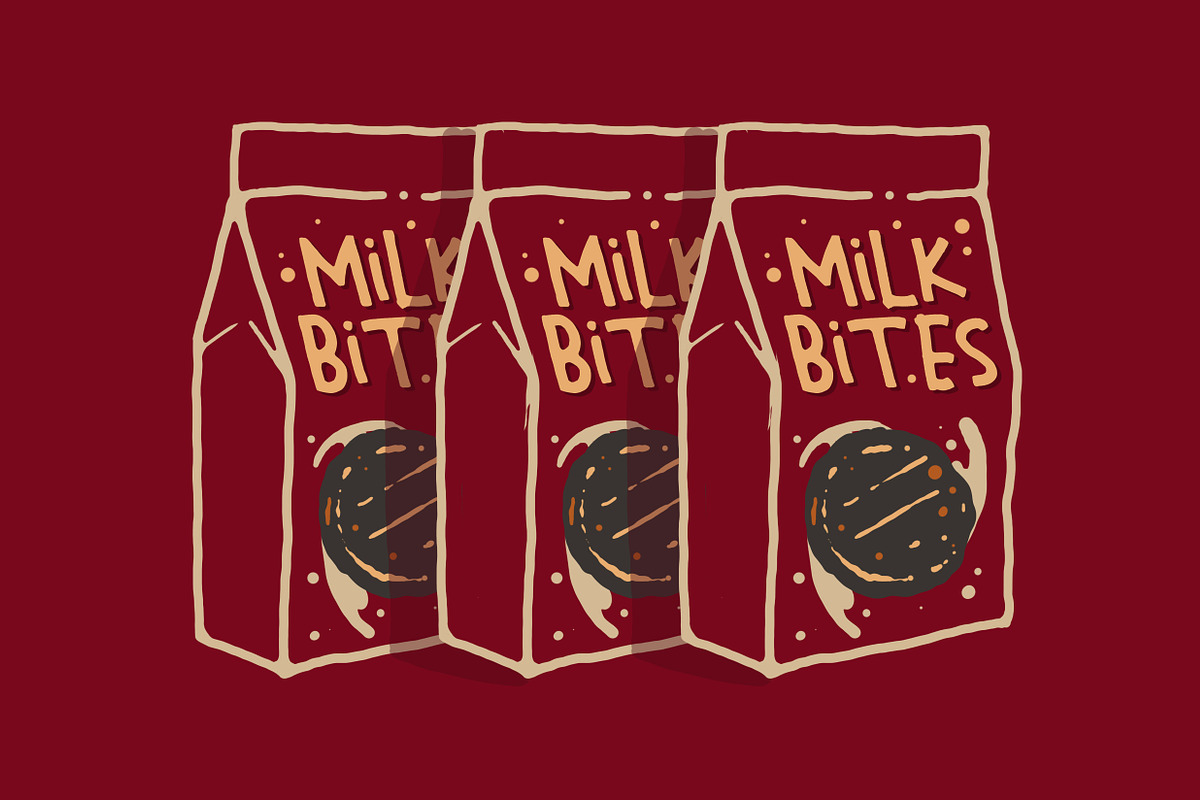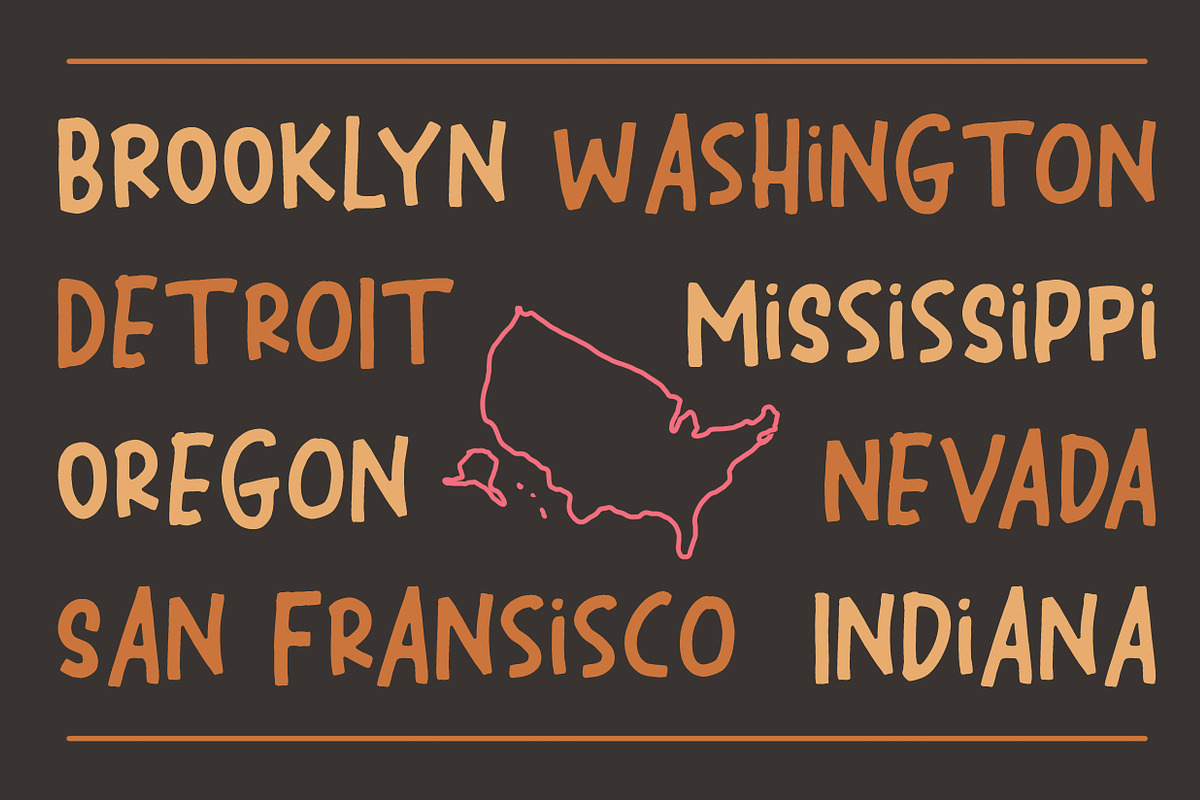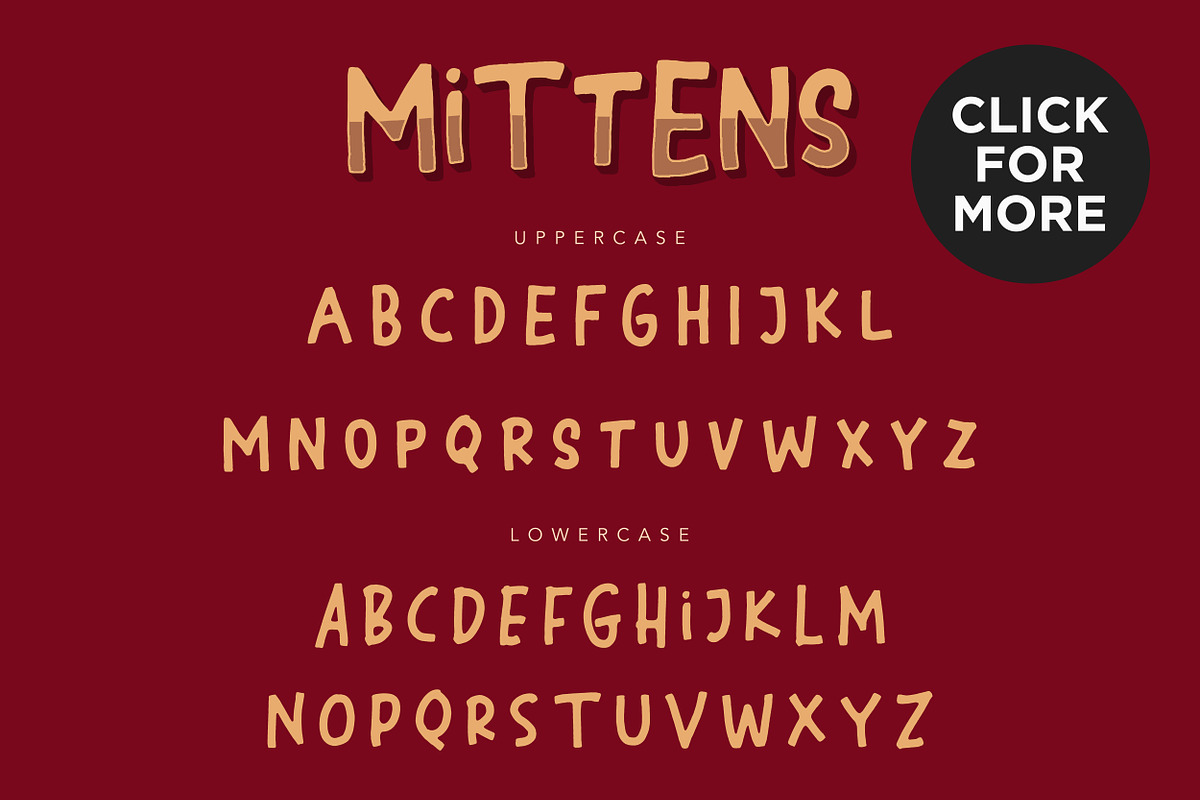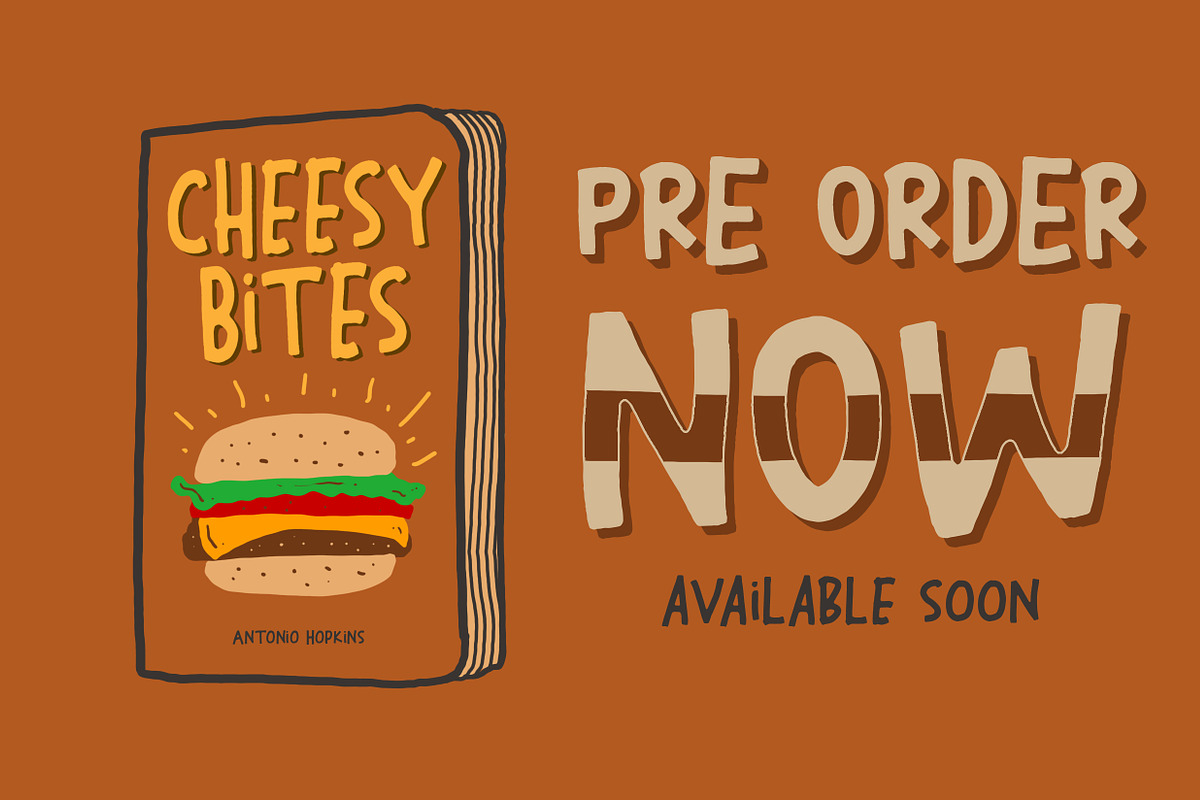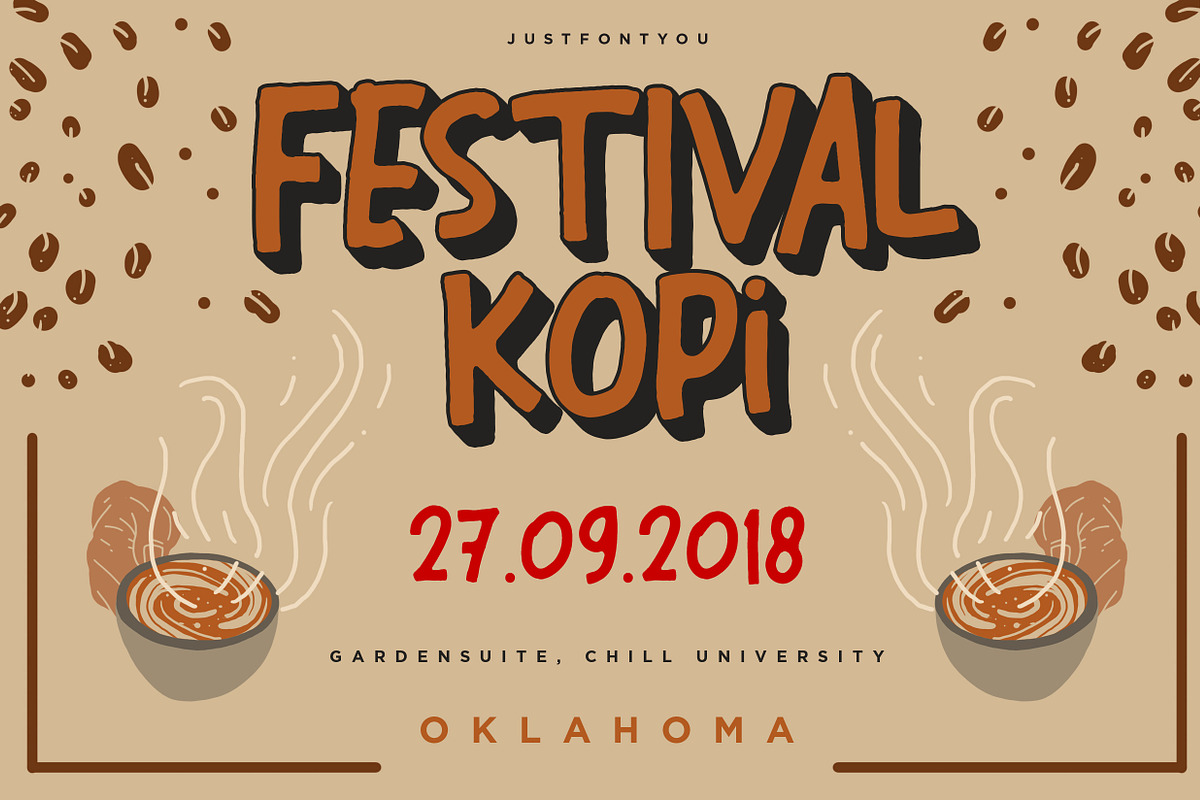
Mittens - Casual Fun Font
Say hello to Mittens. Super playful hand drawn font with the loads of fun and casual vibes, Perfectly fit for casual branding, logo, poster, kids book, story book, novel, kids campaign, food and beverages packaging, etc. Release your inner child right away with the Mittens font!